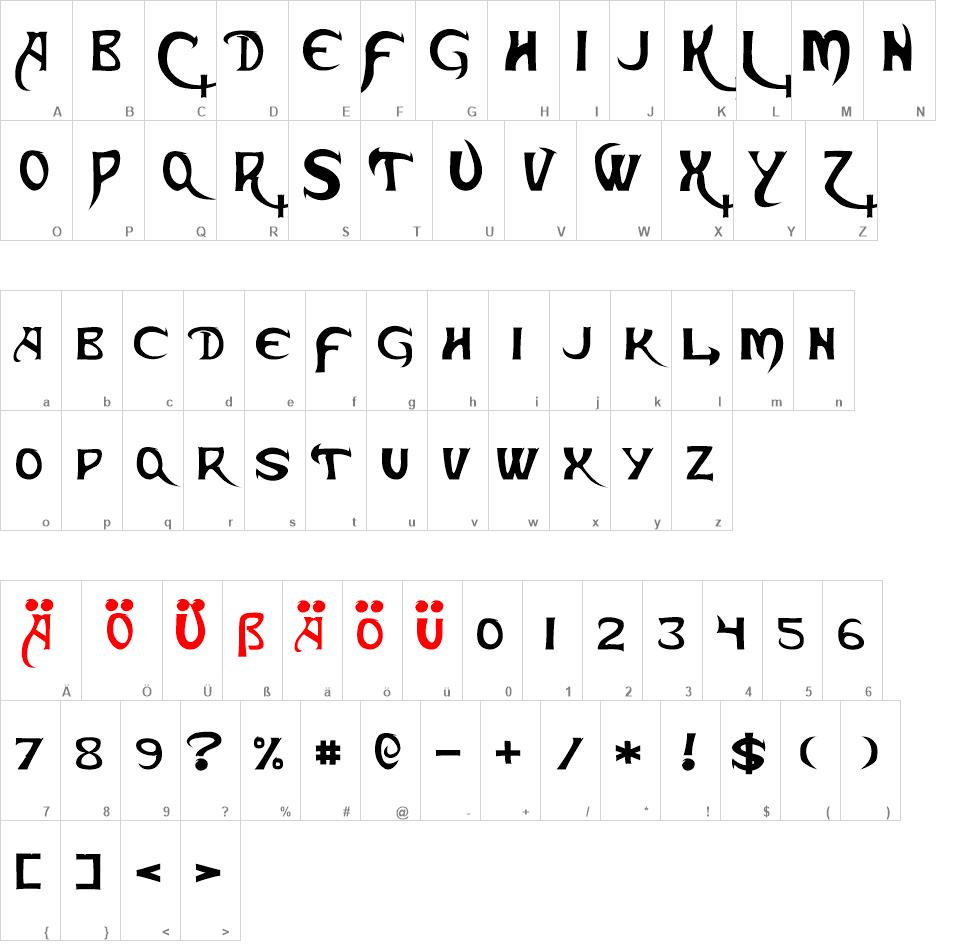
Skeksis
Skeksis font
Skeksis
One of my more popular fonts, this is based on the logo from the Lucasfilm's "The Dark Crystal". Includes full alphabet, extended punctuation, Euro.